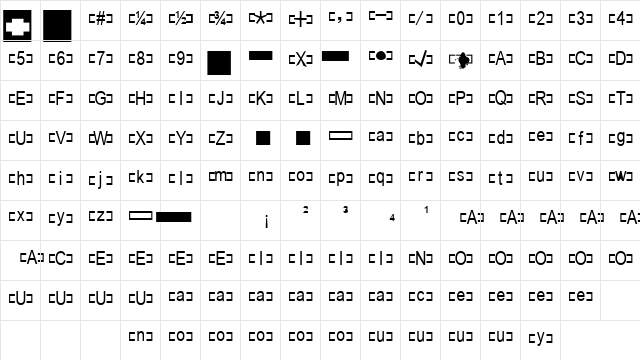
ALRECT Regular
Design Context for ALRECT Typeface
ALRECT takes a measured approach to typography — its balanced proportions and neutral character make it a reliable workhorse for both digital and print work.